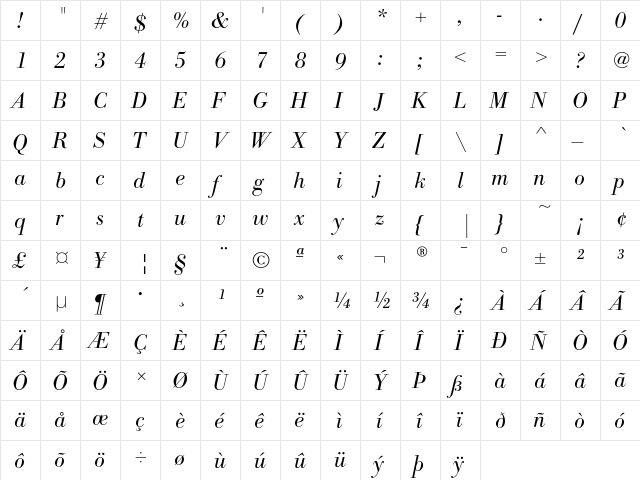
BodoniEF LightIta Font Preview
BodoniEF LightIta
Design Context for BodoniEF Typeface
BodoniEF offers clean, dependable letterforms without strong stylistic allegiance, making it a practical choice for designers who need flexibility. The delicate stroke weight brings airiness and refinement to layouts.